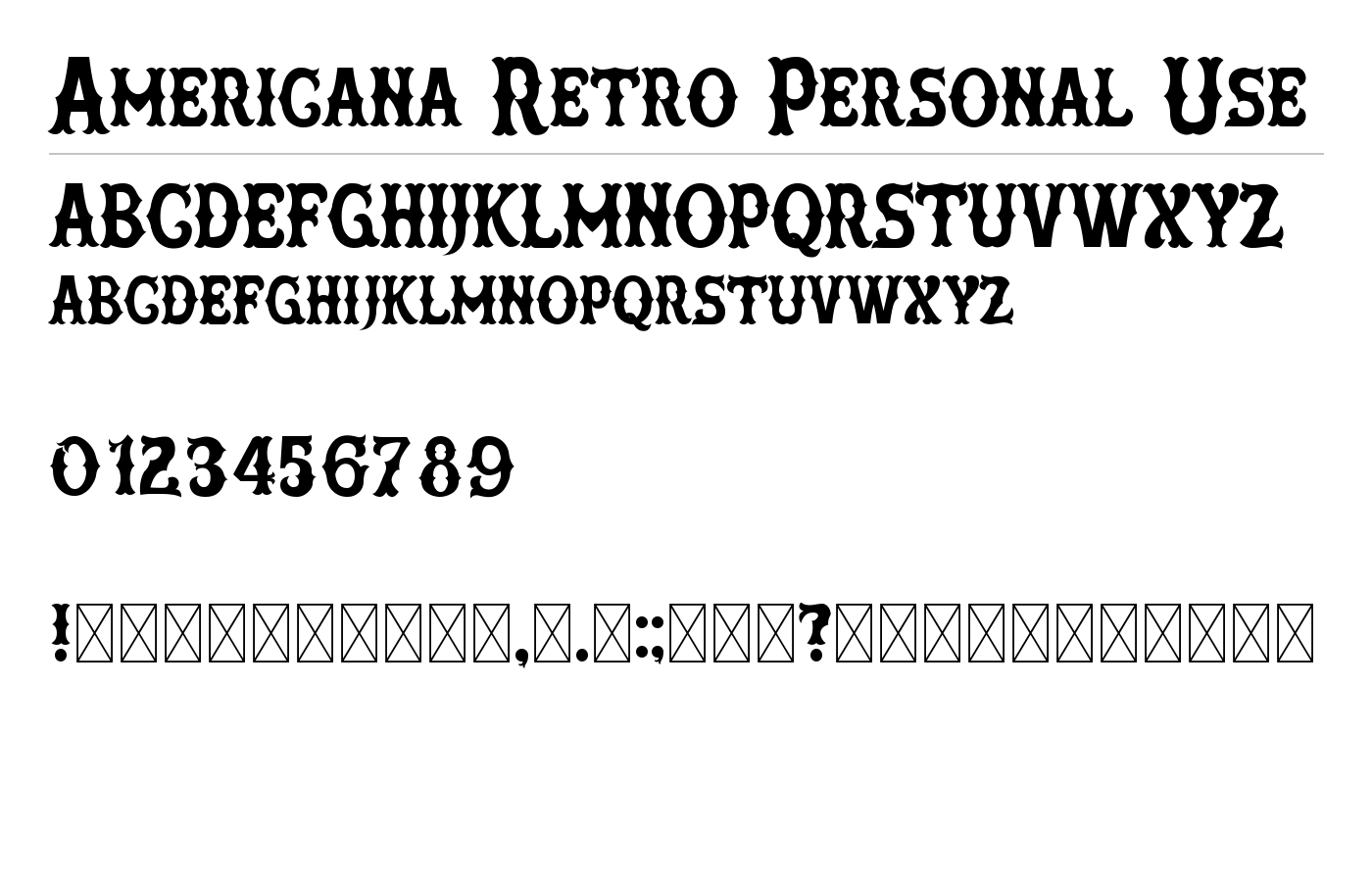
Americana Retro is a bold, serif display font with a vintage Western style, featuring thick and decorative strokes that evoke a nostalgic and playful feel. Its strong, condensed letterforms with high contrast and distinctive serifs make it ideal for eye-catching headlines, logos, posters, and branding that seeks a classic Americana or rustic vibe. This font works best when used to convey personality and charm in designs related to retro themes, entertainment, and heritage-inspired projects.
Americana Retro Font
About Americana Retro Font
| Designer | Muhammad Afif Ersya |